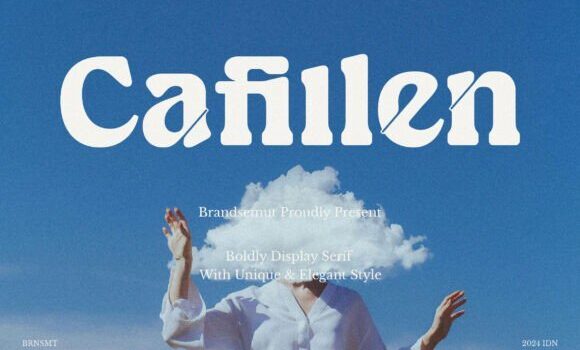
cafillen
Cafillen Font – Free Download Introduction to Cafillen Font Cafillen is an elegant, classy, and modern display serif font, perfect for headings, logos, branding, magazines, product packaging, and invitations. 📸 Preview Gallery 6 images 📌 Product Name Cafillen Font 👤